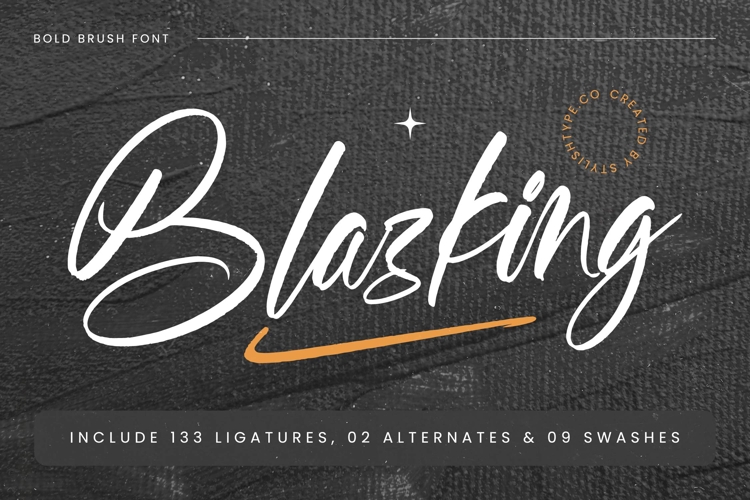
Blazking - Bold Brush Font
Ignite your creative projects with the undeniable charisma of Font Blazking - Bold Brush Font Script. This exceptional typeface exudes a powerful yet elegant energy, perfectly capturing the raw, authentic spirit of hand-painted brush strokes. Its high-contrast design and fluid connections create a truly captivating aesthetic, ensuring your message stands out with both boldness and sophisticated flair. Ideal for those seeking an expressive and dynamic script that commands attention and conveys a sense of unique artistry.
Unleash unparalleled design flexibility with Font Blazking - Bold Brush Font Script, engineered for maximum impact and adaptability. With its extensive multilingual support, Font Blazking - Bold Brush Font Script adapts seamlessly across global markets, making it incredibly versatile for international projects. Boasting an impressive array of 133 ligatures, 02 alternates, and 09 swashes, this font empowers designers with rich customization options, allowing for truly unique and personalized typographic compositions that resonate deeply.